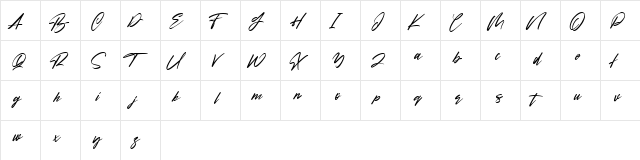
Heatwave Free Font Regular
| Foundry | MaulanaCreative |
| Designer | MaulanaCreative |
Design Context for Heatwave Free Font Typeface
Heatwave Free Font is a composed and adaptable typeface that performs quietly and consistently across a wide range of design contexts.